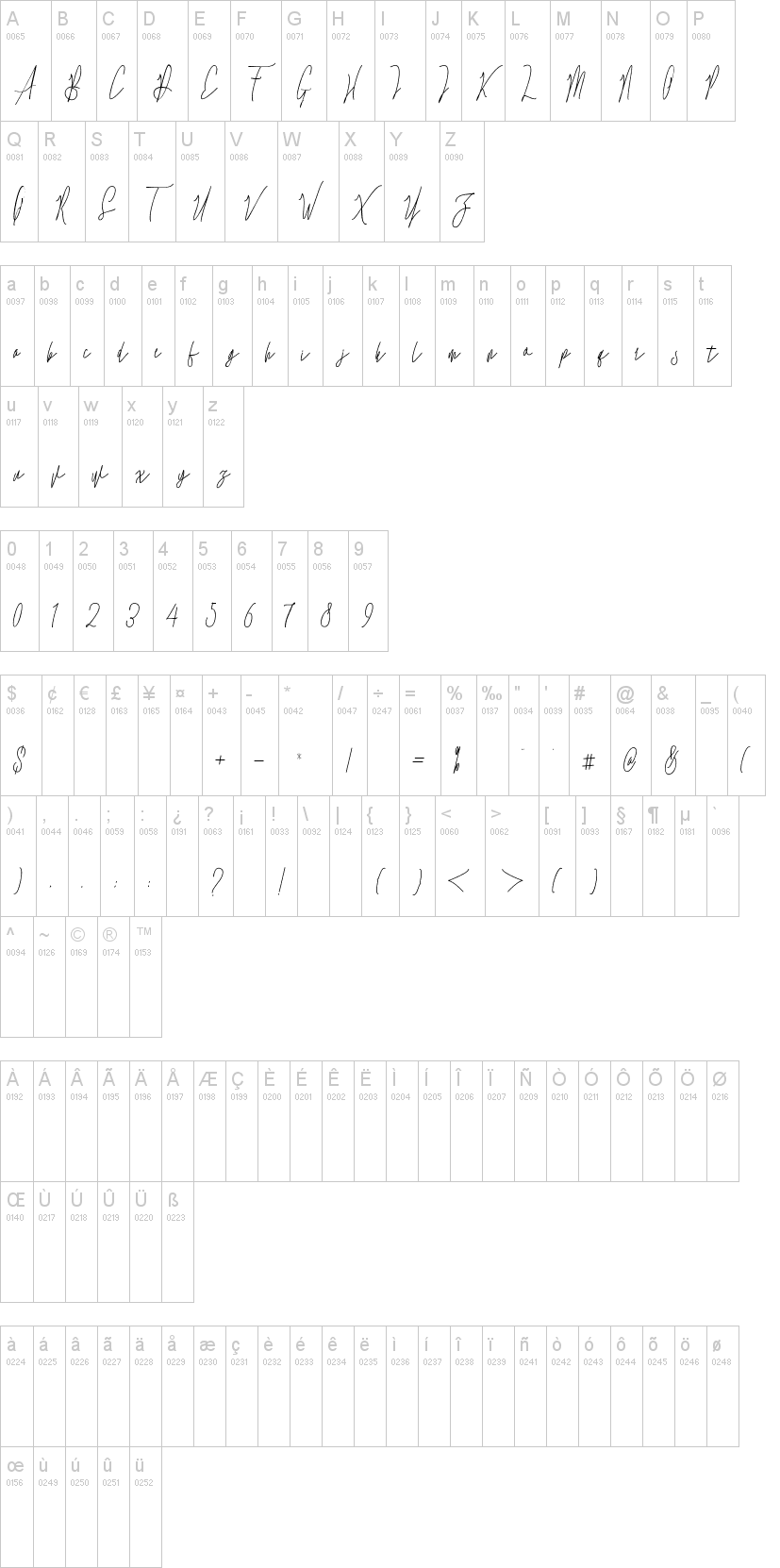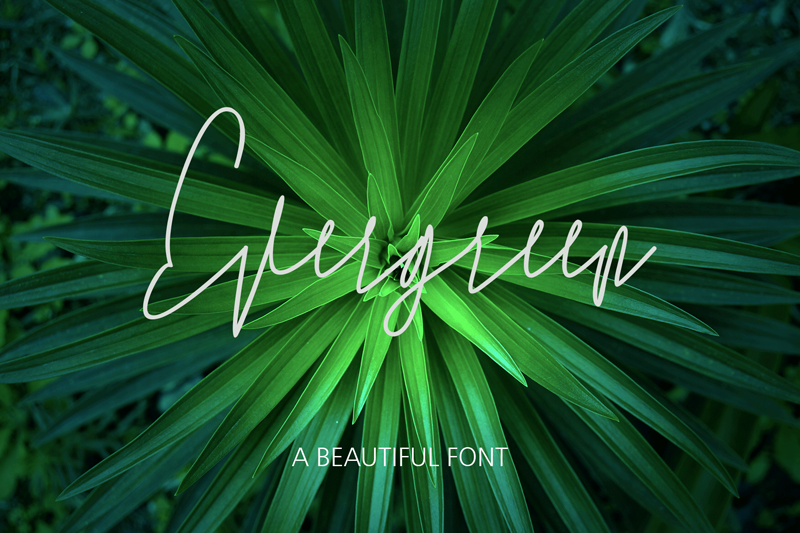
Note of the authorEvergreen is a script font that has the characteristic handwriting, it is very suitable to make certain label and event business and you could be using for a unique piece. Visit here to get full version